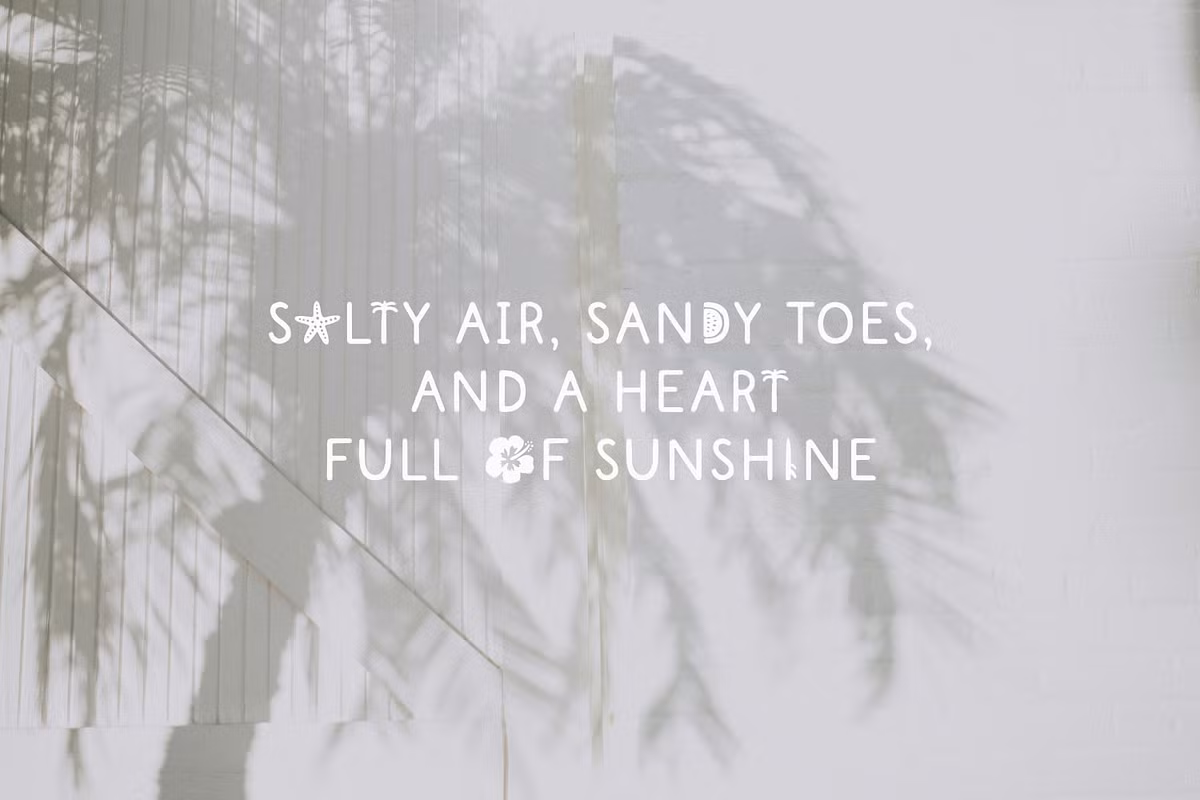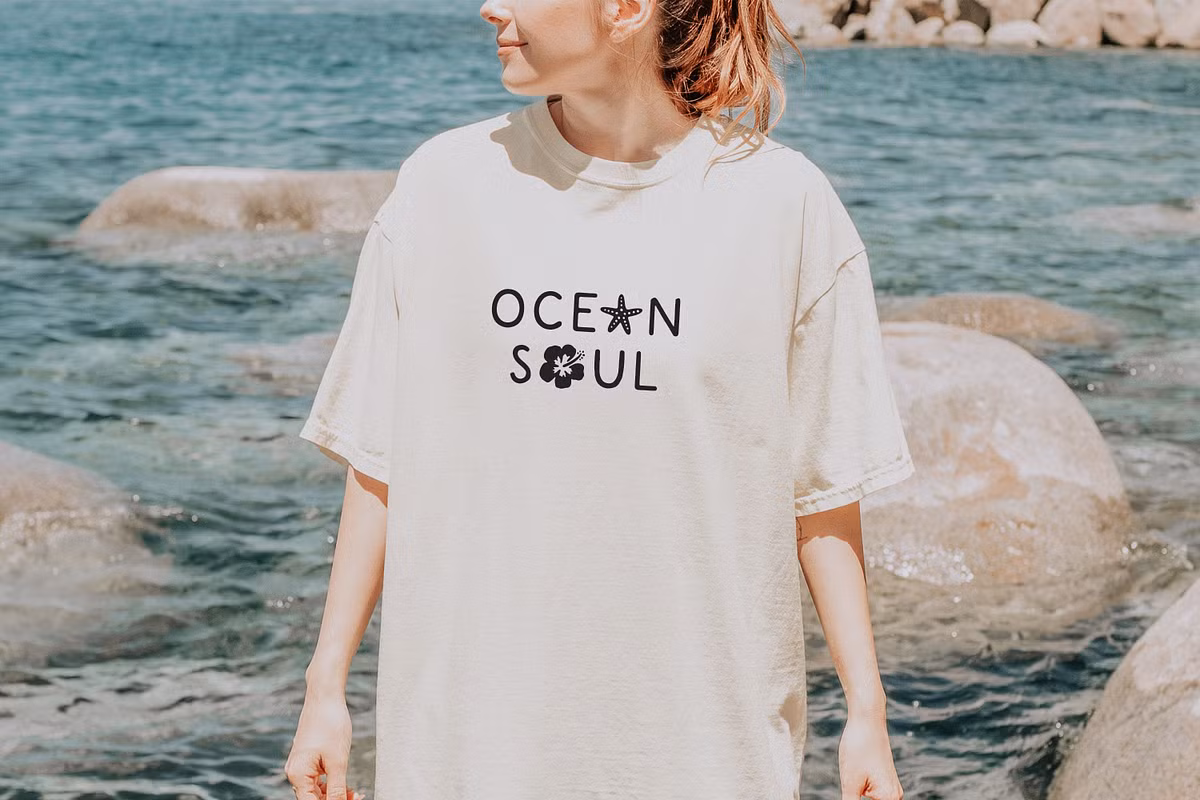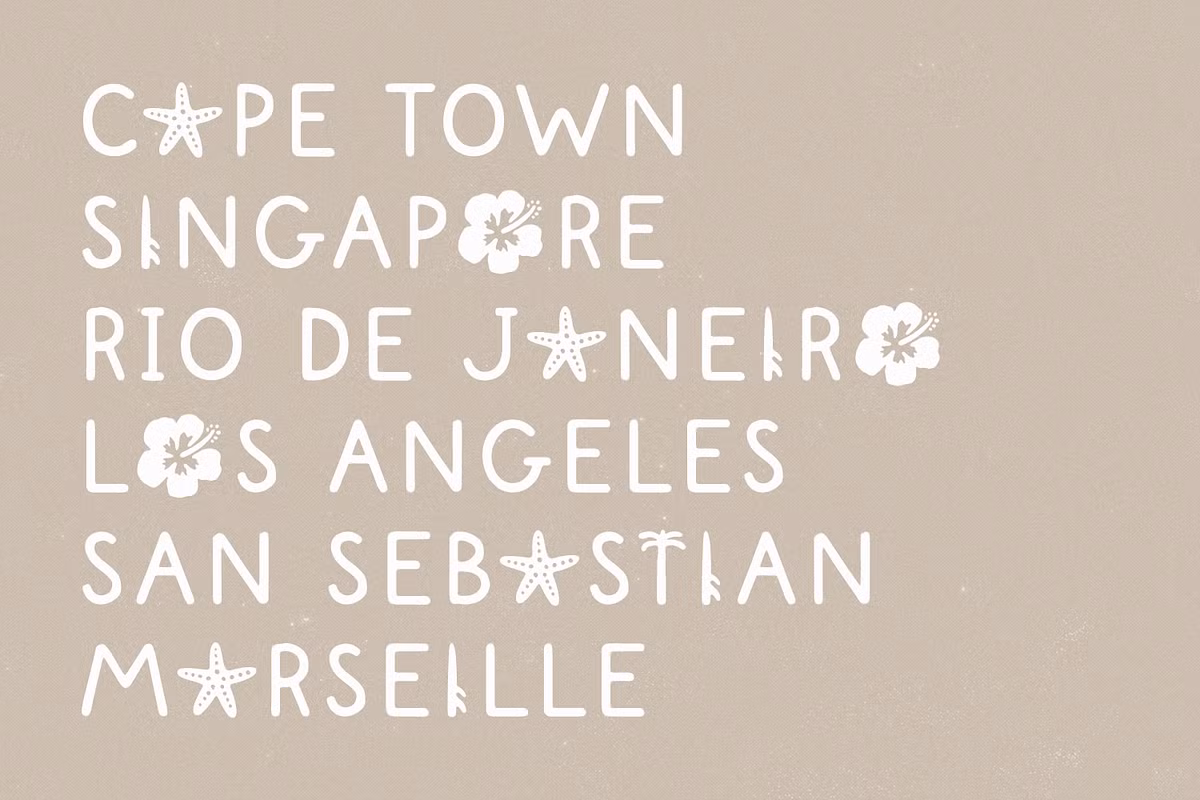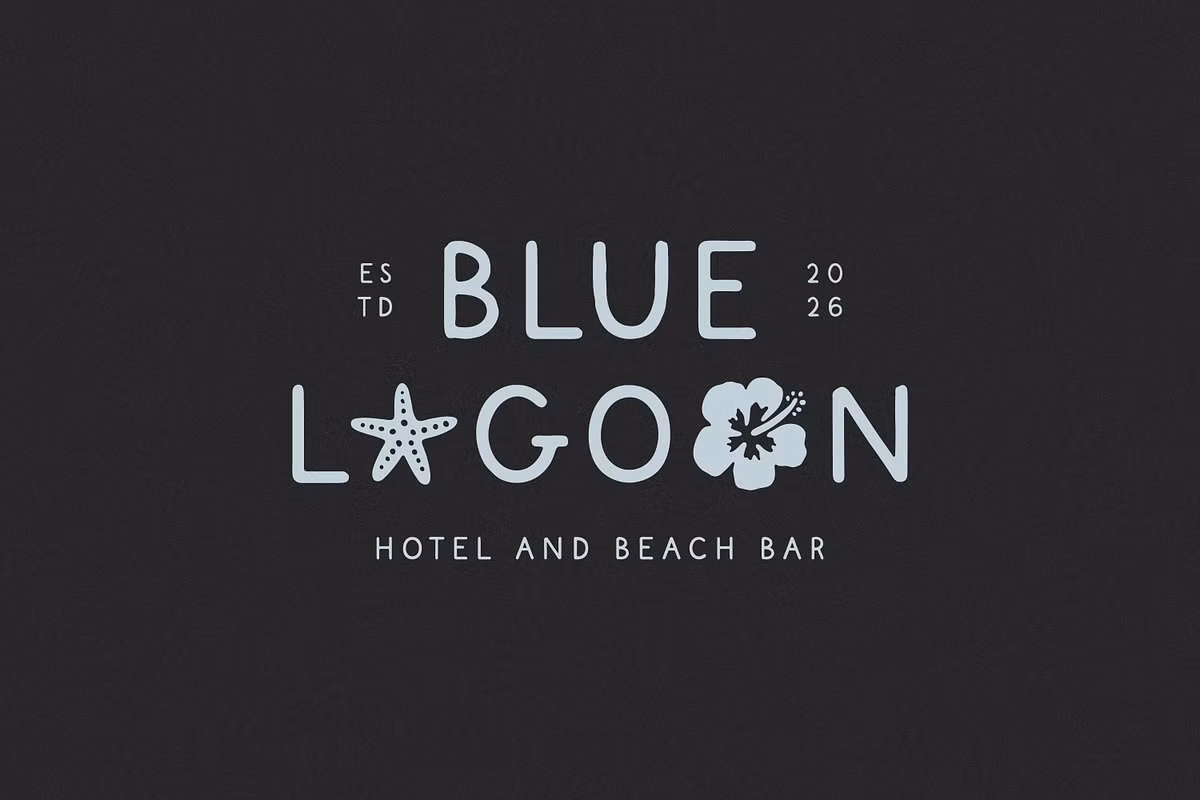
Coastal Paradise: Playful Handwritten Font with Tropical Vibes
Introducing Coastal Paradise
Coastal Paradise is a really nice handwritten font that feels like summer and the beach. It’s meant to add a fun and cozy touch to your projects, making it great for designers who want to make their work a little more playful. The font has its own special style with unique letters and smooth lines, which makes it perfect for lots of different uses like logos, branding, packaging, and even social media posts.
Design Style of Coastal Paradise
The style of Coastal Paradise is really fun and laid-back, it’s like a sunny day at the beach. The letters are rounded and look like they were written by hand, which makes them feel friendly and easy to get along with. They’re made to be a good mix of fancy and casual, so you can use them for lots of different things.
The Coastal Paradise font has a really unique look that sets it apart from other fonts. It’s got a smooth, flowing feel to it that’s just perfect for projects that are all about being happy and upbeat. So, if you’re making a poster for a summer party or a logo for a fun brand, this font is a great choice – it’ll add a touch of excitement to your work and give people a sense of what it’s like to live by the coast, where everything feels easy and carefree.
Character Sets and Features
The Coastal Paradise font is really special because it has a big set of characters that includes both big and small letters, numbers, and punctuation marks. This means you can use it for lots of different projects and still be able to say what you want to say.
What makes it even more interesting are the extra design elements like swashes and ligatures – they add a touch of personality and creativity to your work. With all these options, you can make your projects look really unique and eye-catching. Whether you’re working on something simple or complex, Coastal Paradise has everything you need to express yourself. Its unique style is perfect for adding a little something extra to your designs.
Use Cases for Coastal Paradise
The possibilities for Coastal Paradise are really big, which makes it a great tool for designers to have. There are many ways it can be used, here are a few examples:
- Branding: Coastal Paradise is perfect for creating a brand identity that feels lively and inviting. Its playful nature can help businesses in the food, fashion, or travel industries connect with their audience.
- Product Packaging: Using Coastal Paradise on your product packaging can make it look really appealing and stick in people’s minds. The tropical feel of Coastal Paradise is perfect for things like drinks, snacks, and products that are all about summer.
- Social Media Posts: Make your social media posts really stand out in a crowded online world by using a font like Coastal Paradise. It’s great for quotes, promotions, or just making announcements.
- Invitations: For a summer wedding or party, you can make your own special cards and invitations that feel fun and easy-going.
Pairing Suggestions for Coastal Paradise
To maximize the impact of Coastal Paradise in your designs, consider pairing it with complementary fonts. Here are some suggestions:
When you put Coastal Paradise with simple fonts like Montserrat or Open Sans, it looks really nice. These fonts are clean and easy to read, which helps balance out the fun feel of Coastal Paradise. This makes it perfect for brands that want a modern look.
For a more polished look, consider combining Coastal Paradise with classic serif fonts such as Playfair Display or Merriweather – this pairing can add a level of refinement and poise to your designs.
If you want your project to have a consistent look, try combining Coastal Paradise with other fonts that are handwritten or have a script style, like Pacifico or Dancing Script.
Coastal Paradise is not just a pretty font, it’s a great way to add some fun to your projects. It has a playful style and lots of characters to choose from, making it perfect for anyone who wants to make their work more interesting.
You can use it to make logos, social media posts, or even your own stationery. It’s a great tool to help you be creative and make something special. With Coastal Paradise, you can make all sorts of things and have a lot of fun doing it. So, get creative and see what you can make with this awesome font!